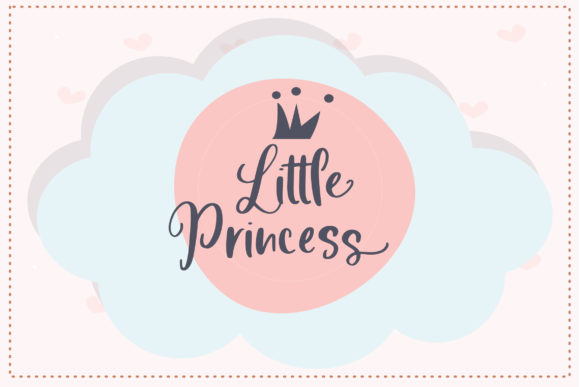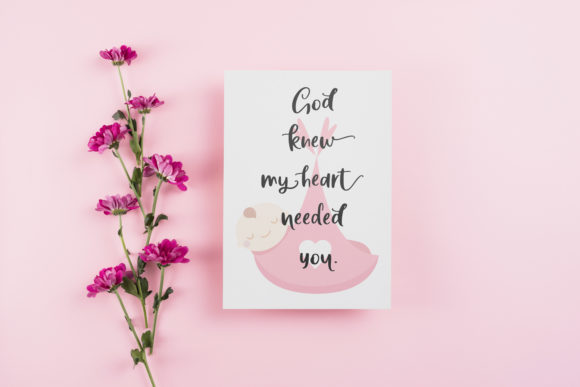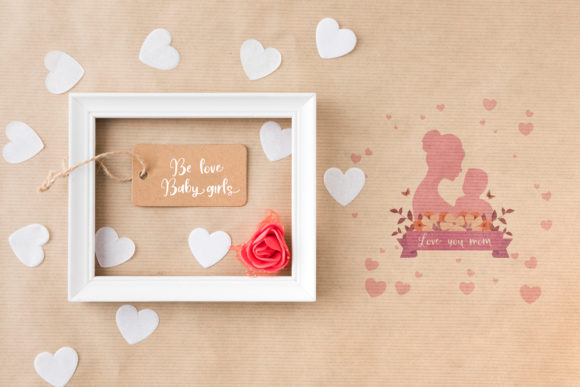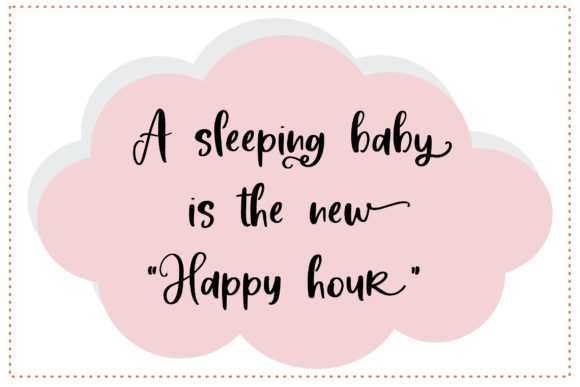
The Joy of Typography: Introducing Baby Girls Font
Have you ever been browsing through a design website or social media and stumbled upon a cute and playful design that instantly puts a smile on your face? I’m sure we’ve all been there, and it’s often due to the clever use of typography. As designers, we understand the importance of selecting the right font to convey our message and evoke the desired emotions in our audience.
One such font that has been making waves in the design community is the Baby Girls Font. This bold script typeface is designed to add a touch of joy and playfulness to your designs. With its versatility and wide range of applications, Baby Girls Font is a valuable addition to any designer’s toolkit.
Baby Girls Font Key Features
- Unique Characteristics: Whimsical, cursive script with elegant flourishes, perfect for creating a playful and feminine atmosphere.
Baby Girls Font Review
Overall, I was quite pleased with the Baby Girls Font when I first started using it. It’s a beautiful, delicate script font that’s perfect for any project related to babies, kids, or anything sweet and feminine. ✨ I loved how the font is designed with smooth, flowing lines and subtle flourishes that give it a touch of elegance.
Here are some of the things I liked about the font:
- Beautiful script design with a delicate touch ✨
- Perfect for projects related to babies, kids, or anything sweet and feminine
- Works well with a variety of color schemes and backgrounds
- Available in a range of font sizes and styles
However, I did encounter some limitations with the font:
- Not ideal for projects that require a bold or edgy feel ⚠️
- May not work well with very dark or very light backgrounds
- Some users may find the font too cursive or hard to read at small sizes
Overall, I think the Baby Girls Font is a great choice for designers who need a sweet and feminine font for their projects. With some careful planning and design considerations, this font can be a real showstopper. ✨
Some popular use cases for Baby Girls Font include:
- Baby shower invitations
- Children’s party decorations
- Gift tags and wrapping paper
- Children’s clothing and accessories
For optimal results, use the Baby Girls Font in conjunction with pastel colors and soft graphics to create a whimsical and feminine look.